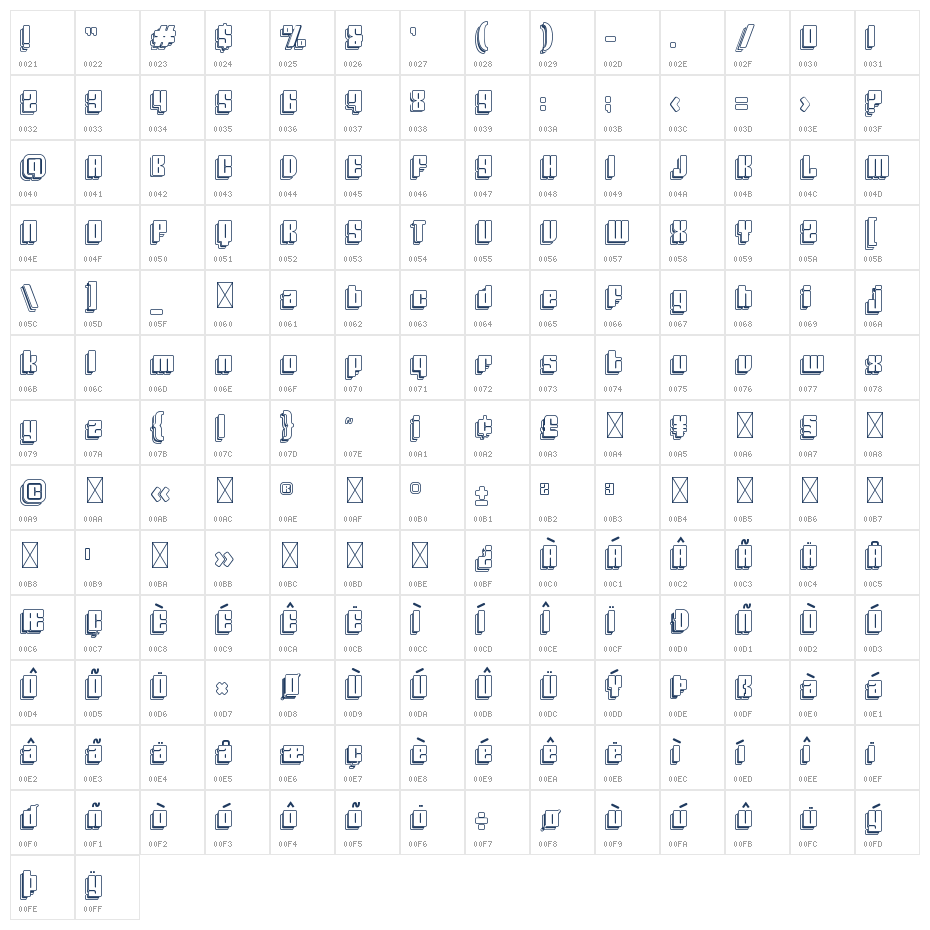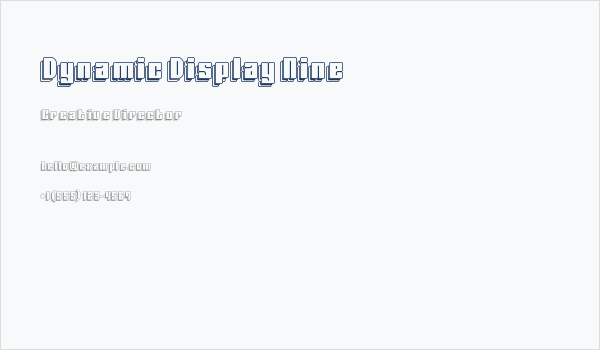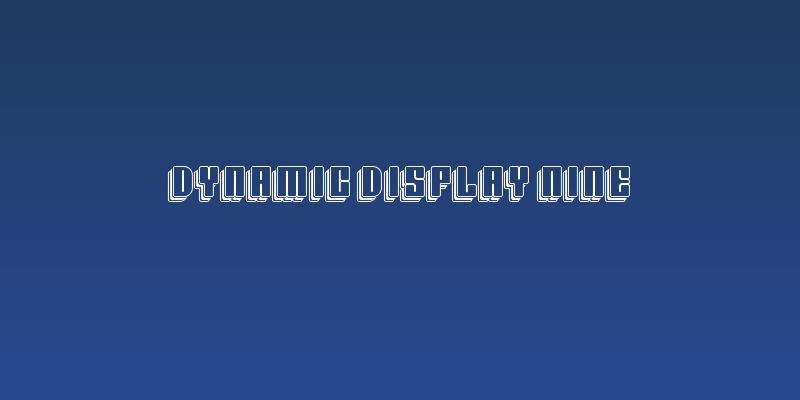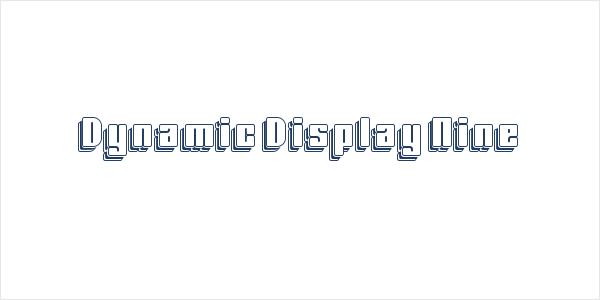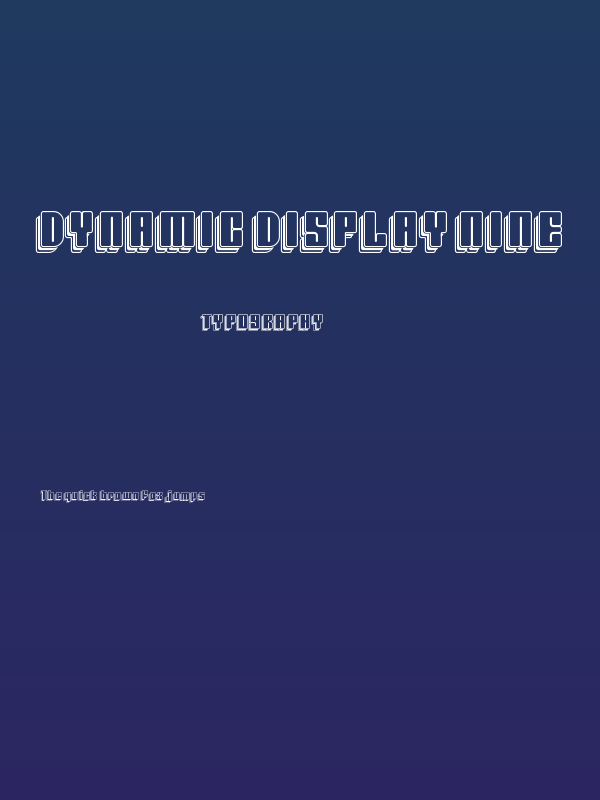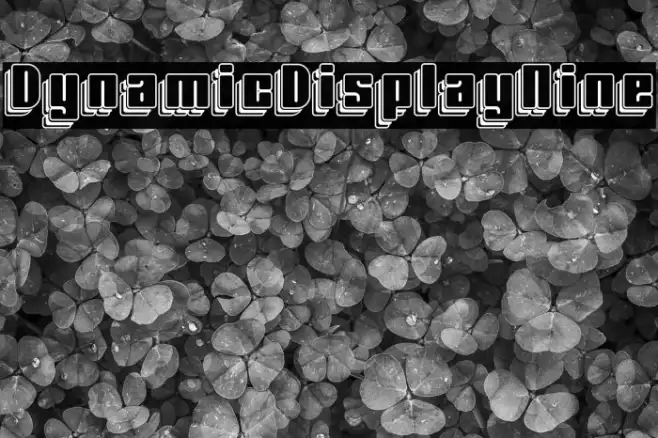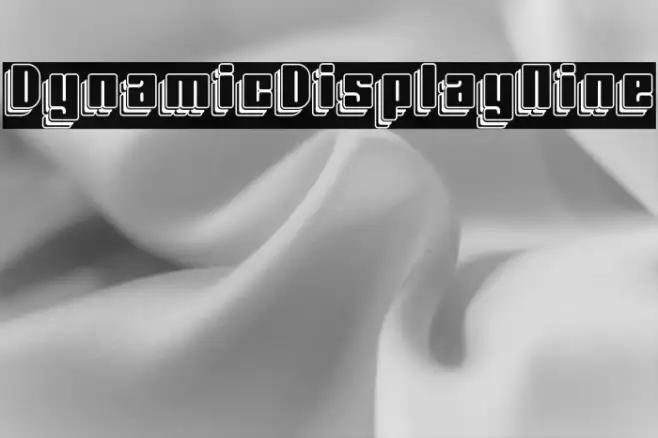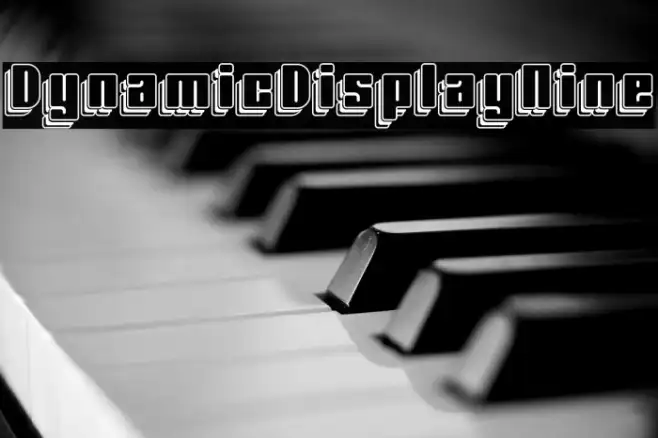
Dynamic Display Nine Font
Dynamic Display Nine Description
A bold, outlined, geometric display font with a 3D shadow effect, featuring uppercase and lowercase letters, numbers, and special characters.
| Overall Style | Modern, Geometric, Retro-inspired |
| Use Case | Headlines, Posters, Logos, Branding |